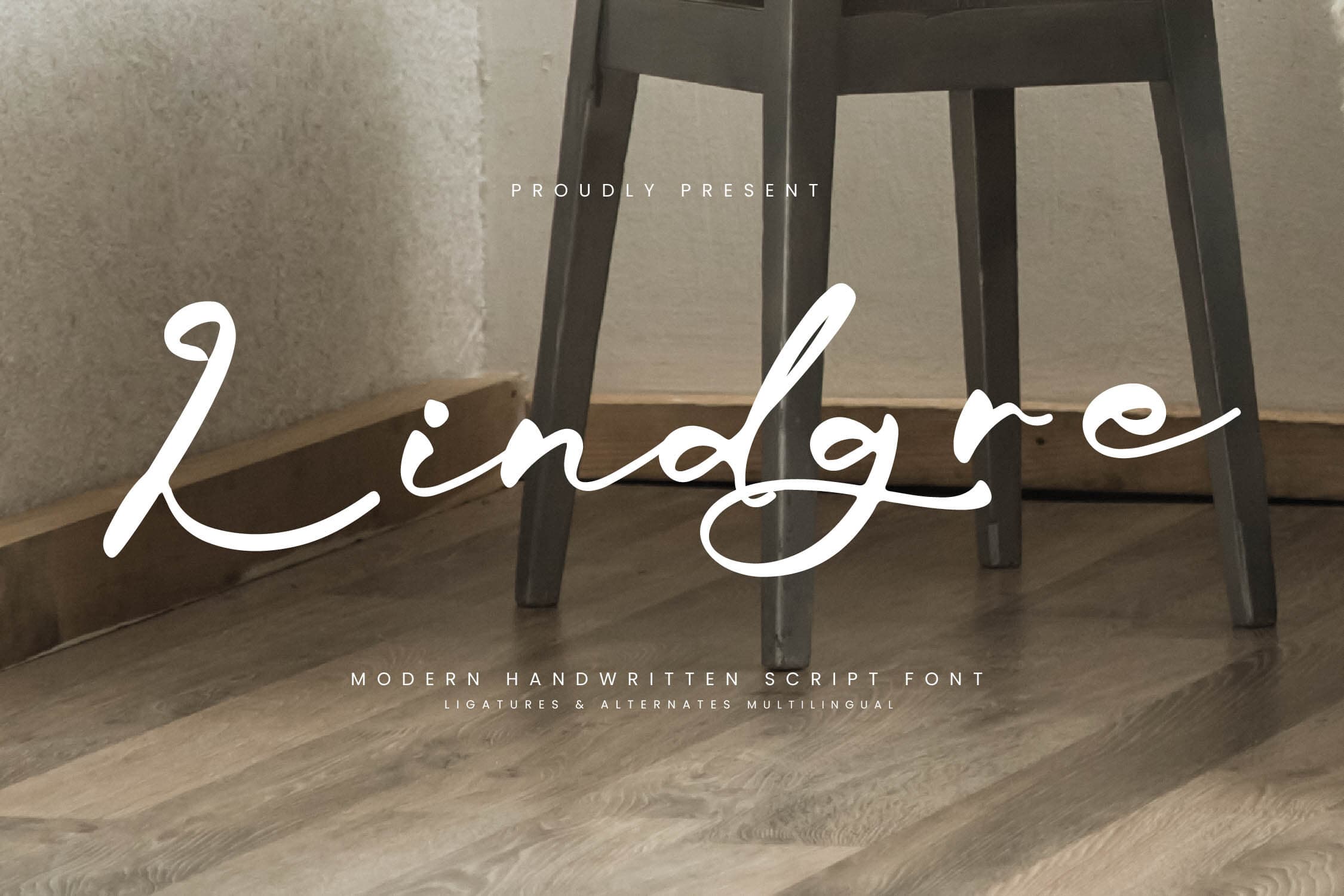
๐ Check out Lindgre Font now! Explore this ๐ script fonts and claim your ๐ free download here. Let's start crafting together! ๐ Lindgre โ Modern Handwritten Script Font, from Integritype Studio, perfect for any project like: logos, branding proje...